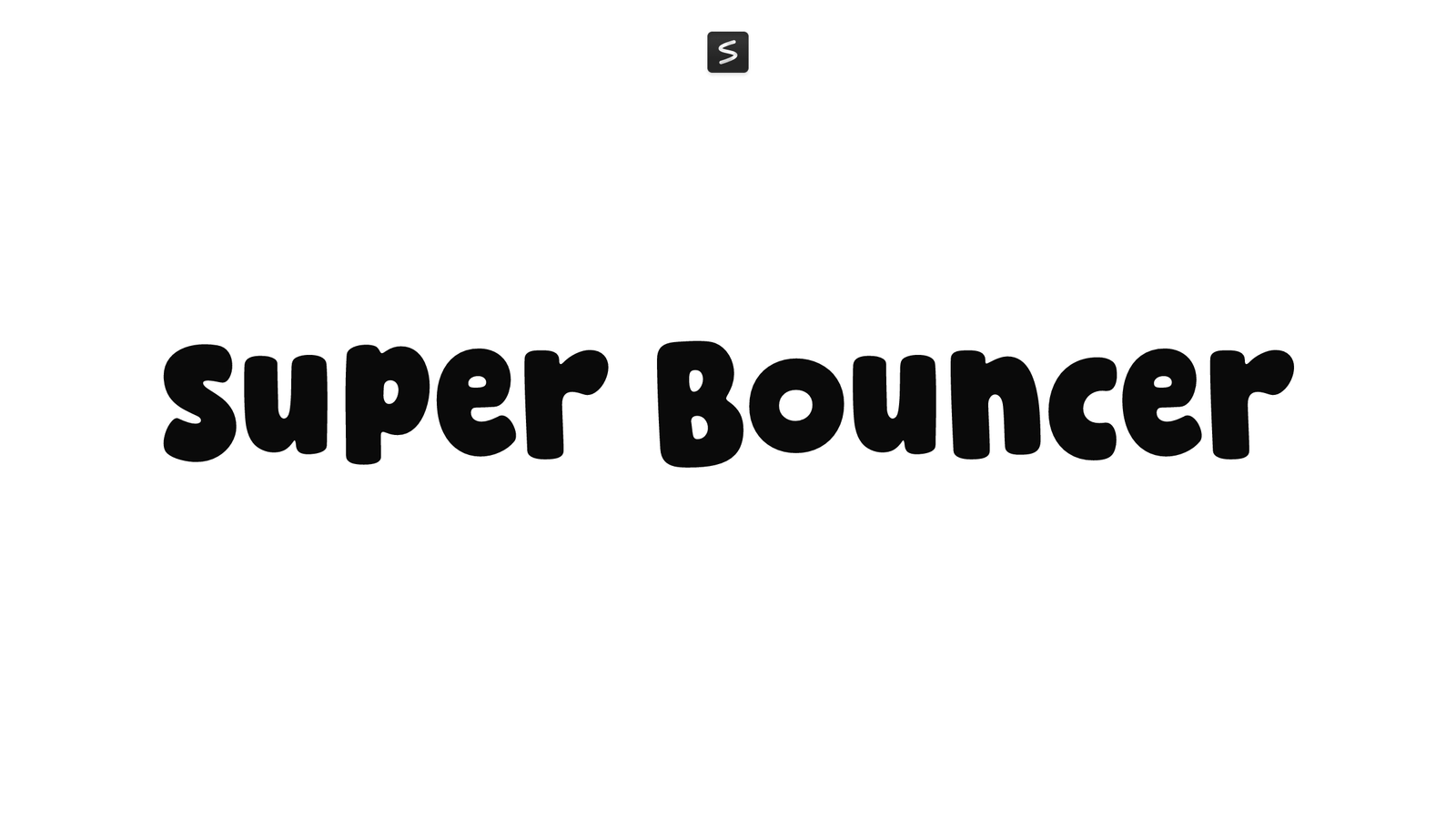
Super Bouncer is a chunky rounded display font by fsuarez913 with an exuberant, cartoon-like personality. Its bulbous letterforms and uniform weight give it an instantly recognizable charm that reads as playful and approachable, making it a natural fit for projects aimed at younger audiences or anything that benefits from a lighthearted tone.
The letters sit comfortably within a rounded geometry, avoiding sharp angles altogether. Each character feels full and generous, with plenty of breathing room inside the counters. This gives Super Bouncer a friendly, almost bubble-letter quality that works equally well at large display sizes or smaller text blocks where the personality still comes through.
Super Bouncer is well-suited for children’s book covers, toy packaging, playful branding, comic lettering, social media graphics, and game UI. Its rounded forms pair naturally with illustration-heavy designs and informal layouts. If you need text that feels warm and welcoming without trying too hard, Super Bouncer is a solid choice.